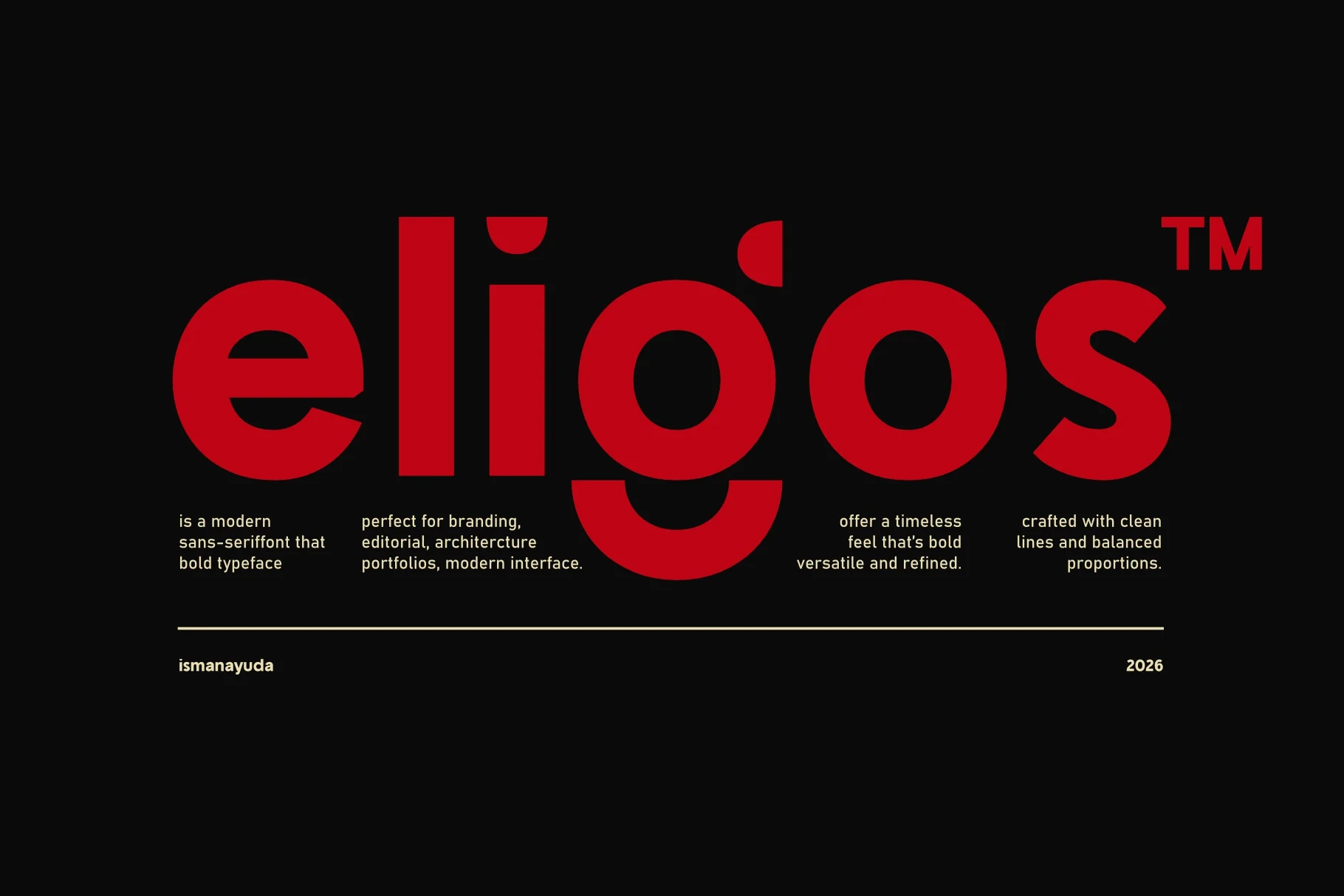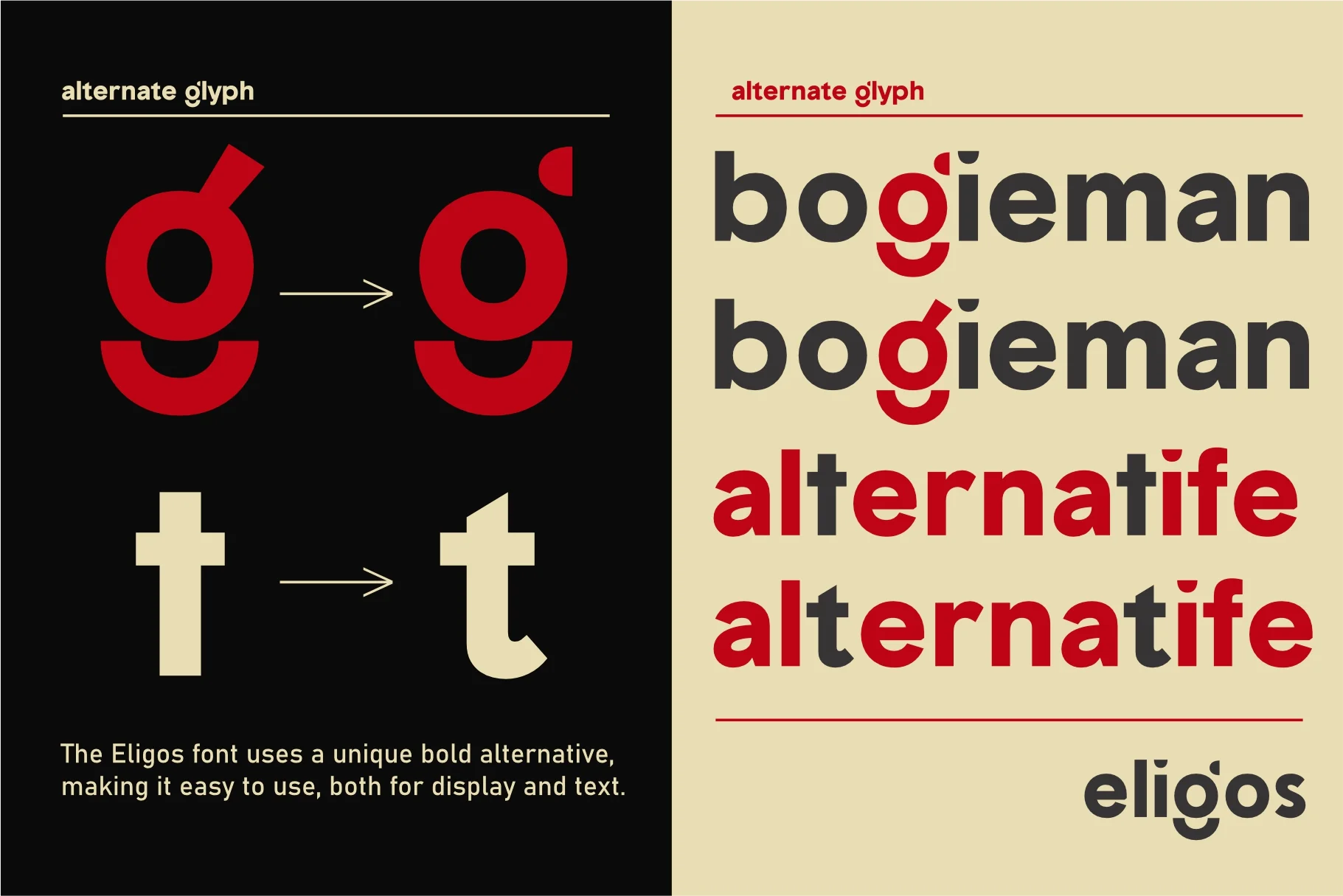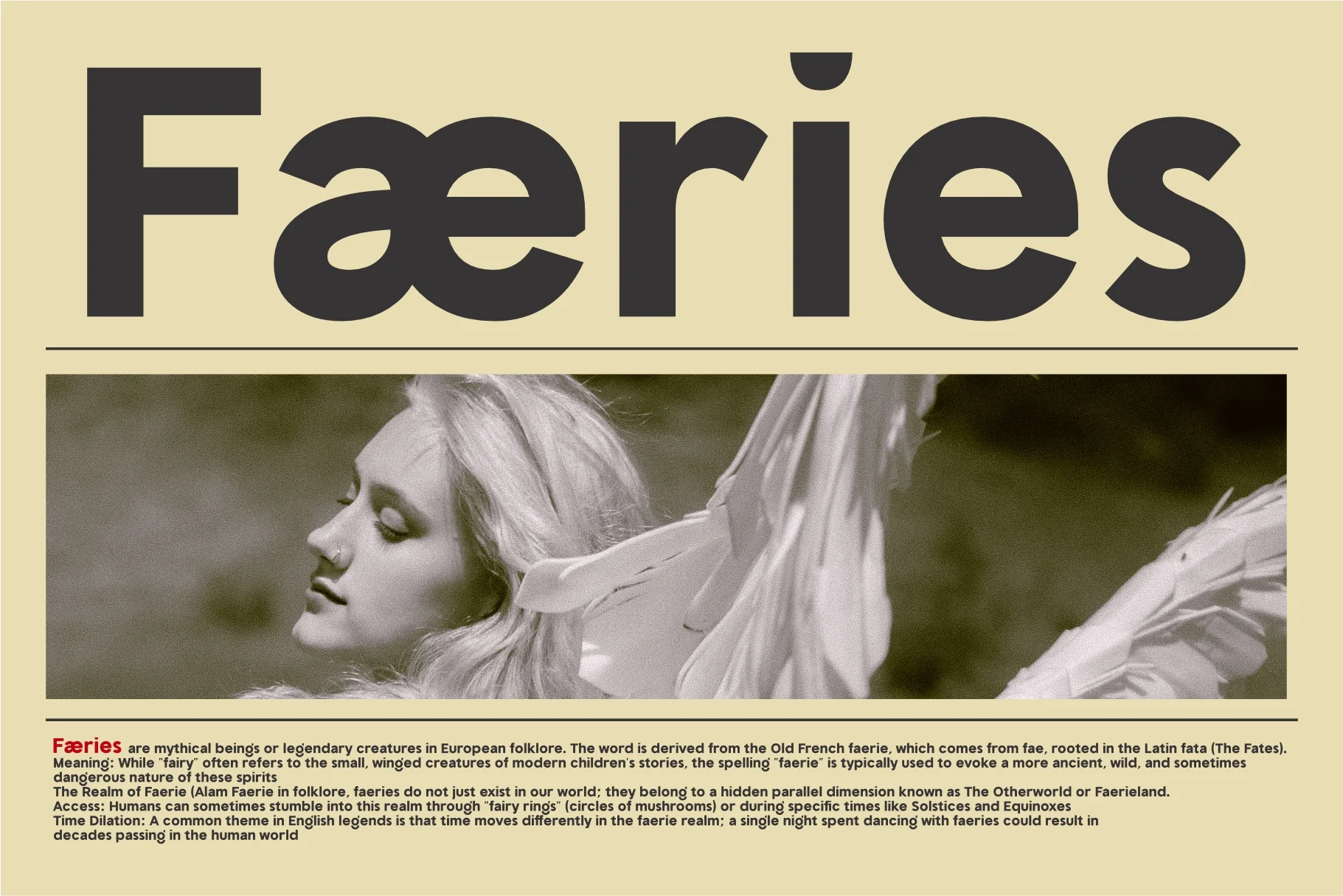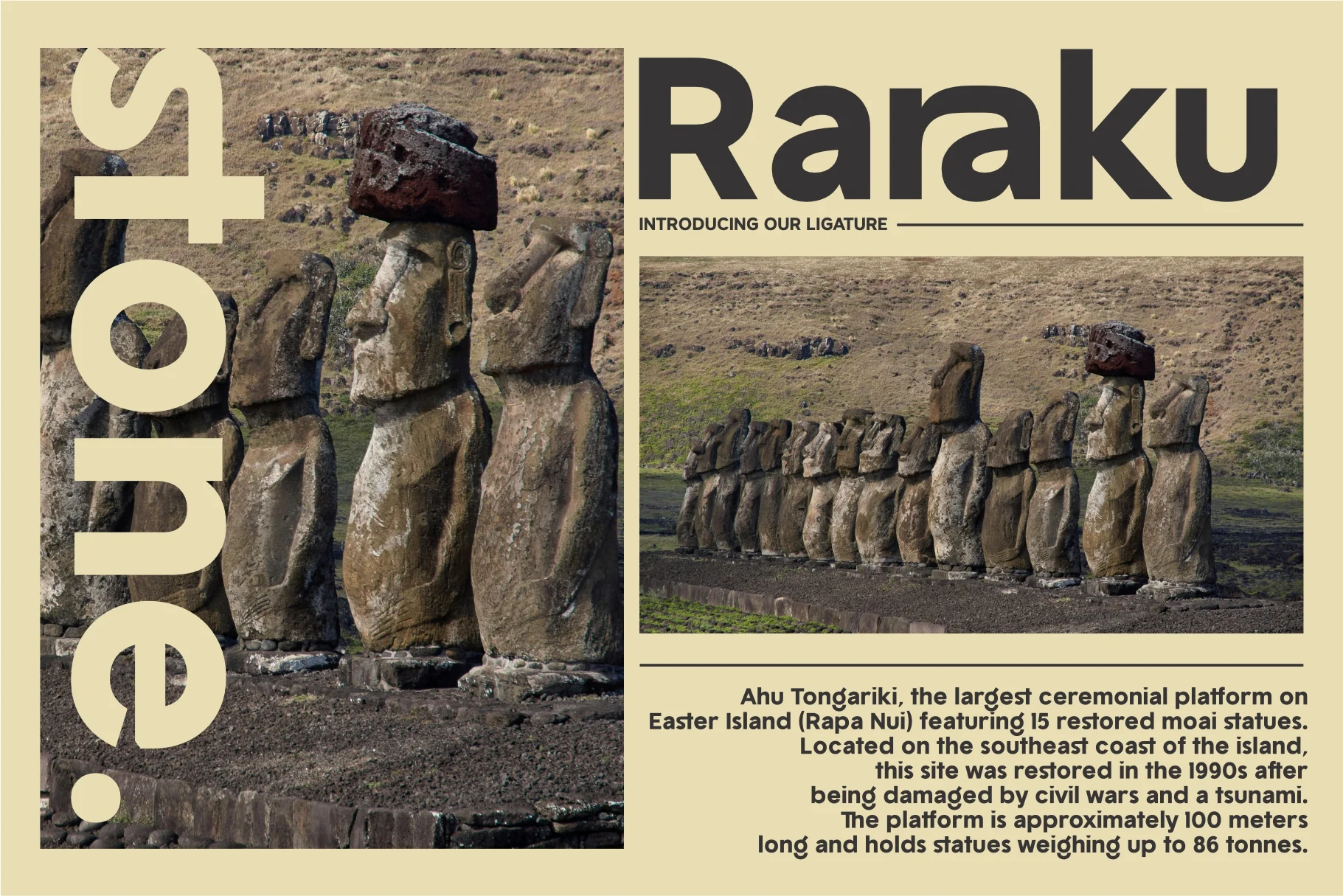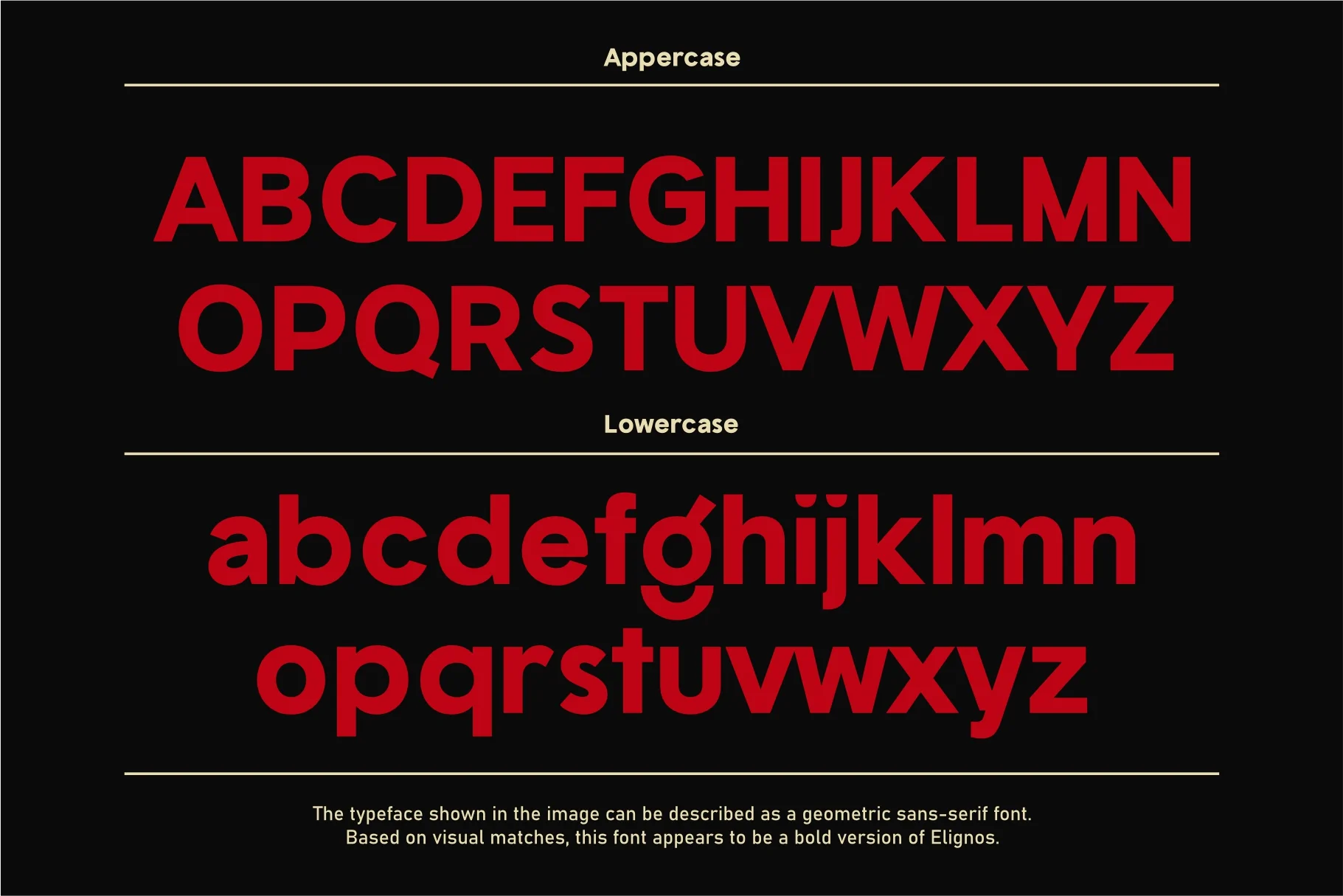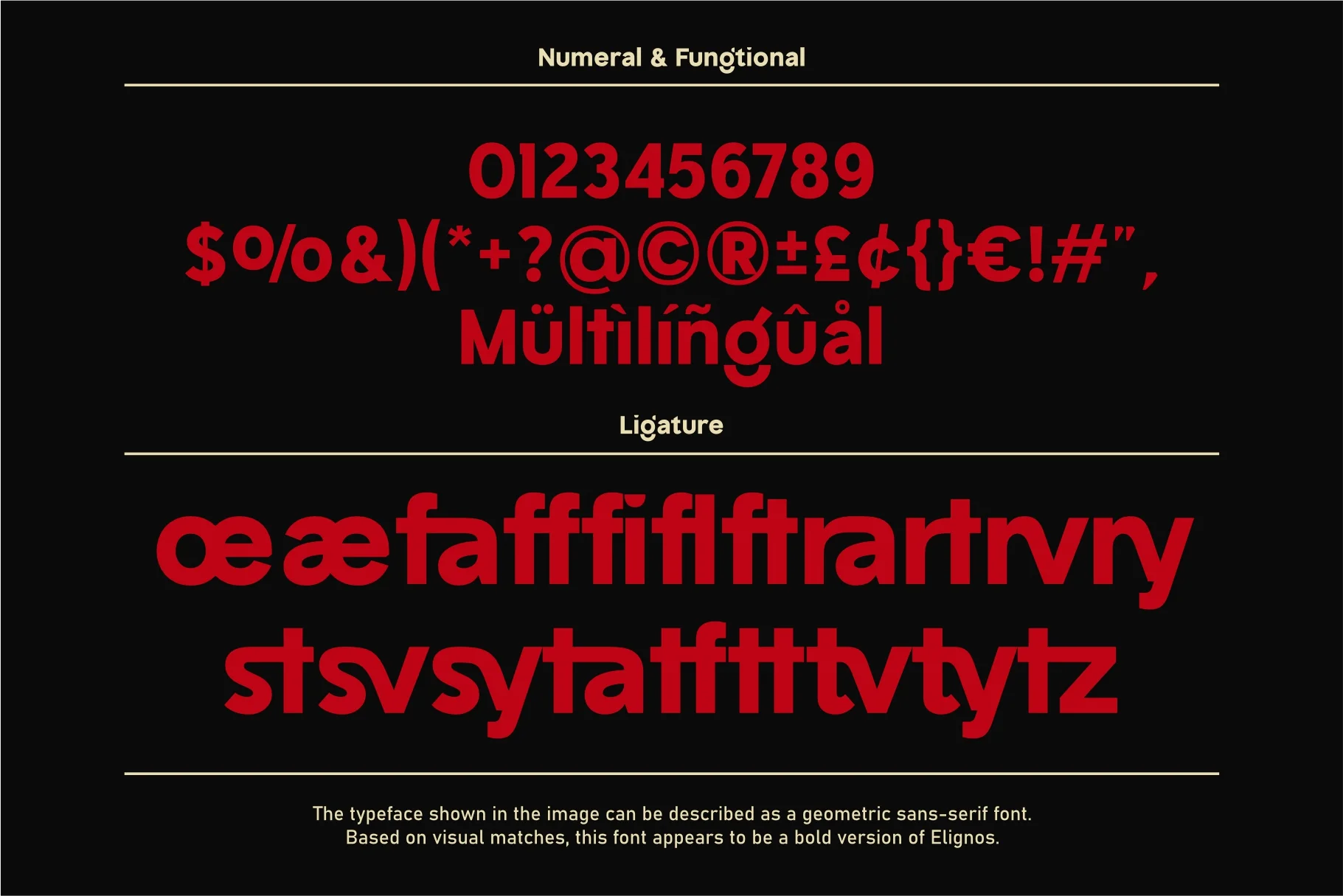
Eligos
Eligos is a bold and sophisticated display font characterized by its circular geometry and clean, balanced proportions. Its visual identity is defined by a "timeless" feel that is both versatile and refined. The typeface features unique stylistic details, such as the stylized 'g' with a deep, rounded descender and a distinctive dot accent above the bowl, as well as the sharp, diagonal terminal on the 's'.
Designed for high-impact visual communication, its thick strokes and minimalist aesthetic make it exceptionally well-suited for branding, modern user interfaces (UI), fashion editorials, and architectural portfolios. It balances a friendly, rounded appearance with a sturdy and professional structural foundation